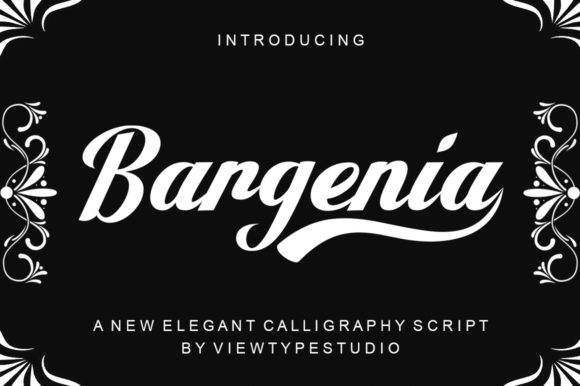
Bargenia Font
About Bargenia Font
Bargenia is a modern script font with a stunning baseline, created by using a brush pen. This font is PUA encoded which means you can access all of the glyphs and swashes with ease! It features a varying baseline, smooth lines, gorgeous glyphs and stunning alternates.Its versatility will appeal to a wide range of crafty ideas, from letterheads and titles, to stationery.